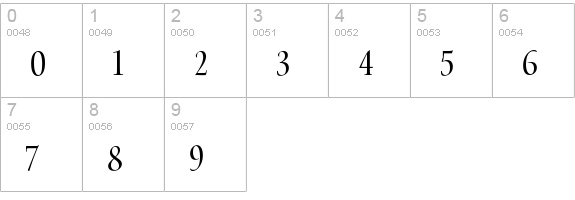
Waters Titling Pro Condensed Font Details
Waters Titling Pro Condensed is a distinctive, condensed-width variant in the Waters typeface family \xE2\x80\x94 well suited to design and typography projects.
Introducing the exquisite Waters Titling Pro Condensed font, a captivating typeface that effortlessly combines elegance and modernity. This font's condensed form exudes a sense of sophistication, making it the perfect choice for any design project that requires a touch of refinement. With its sleek lines and impeccable attention to detail, Waters Titling Pro Condensed commands attention and creates a lasting impression. Whether used in headlines, logos, or branding materials, this font effortlessly elevates any visual composition to new heights. What sets Waters Titling Pro Condensed apart is not only its impeccable design, but also its accessibility. As a versatile typeface, it offers a wide range of weights and styles, allowing designers to experiment and create captivating compositions. Best of all, it is freely available to download at FontsMarket.com, making it an ideal choice for both personal and commercial projects. Designed with utmost precision, Waters Titling Pro Condensed offers exceptional legibility even at smaller sizes, ensuring that every character is rendered with clarity and finesse. Its refined curves and balanced proportions make it a pleasure to work with, providing a seamless and harmonious typographic experience. Whether you're designing for print or digital media, Waters Titling Pro Condensed effortlessly adapts to any context, delivering a professional and polished aesthetic. Its versatility allows it to be applied in a variety of design styles, from sleek and modern to classic and timeless. Incorporating Waters Titling Pro Condensed into your design arsenal is an investment in elegance and versatility. So why wait? Take advantage of this exceptional font freely available for download at FontsMarket.com and let your creativity soar to new heights. Unleash the power of Waters Titling Pro Condensed and immerse your audience in the beauty of your designs.